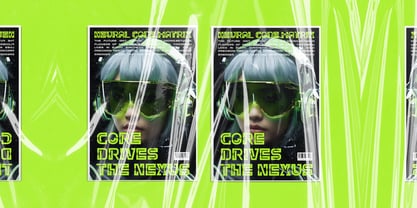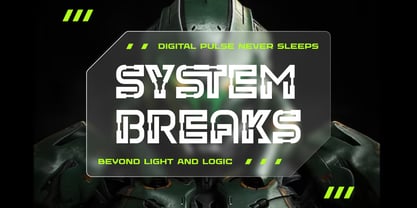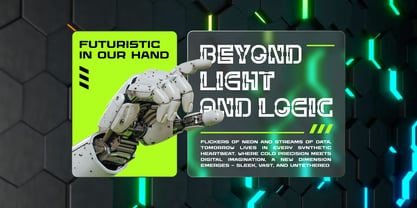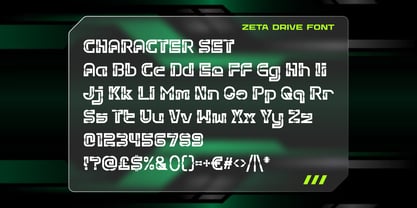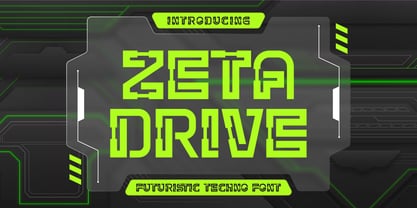
Zeta Drive
by Shanaf
Zeta Drive is a bold, high-tech font engineered for the digital frontier. Inspired by cybernetic systems and modular mecha aesthetics, this typeface features precise angles, mechanical terminals, and split-line construction, evoking the schematics of advanced robotics. Each glyph is formed with square-based geometry, sharp counters, and circuitry-style breakdowns, presenting a calculated chaos that fits perfectly within cyberpunk, sci-fi, and future-driven design contexts. Zeta Drive delivers powerful visual impact through its solid strokes and pixel-sliced motifs, ideal for branding, interfaces, poster titles, and futuristic editorial layouts.
This font thrives in high-tech environments—perfect for sci-fi movie titles, tech company logos, gaming UIs, or futuristic packaging. Its neon green palette in previews suggests energetic, digital-age themes, while the consistent character set offers uppercase, lowercase, numbers, and essential symbols for broad functionality. Whether displayed in holographic grids or dystopian tech posters, Zeta Drive is crafted to command attention and redefine tomorrow’s visual language. Use it to elevate any project into the realm of advanced, speculative design.